Serif fonts have long been the language of refinement, prestige, and timeless style. Whether you're designing for a high-end fashion label, crafting an editorial layout, or building a luxury brand identity from scratch, the right serif typeface can say everything before a single word is read. Here are 10 exquisite serif fonts that blend classical elegance with modern sensibility — each one ready to transform your next project.
Casova
A refined and stylish serif display font with elegant European flair, featuring rich alternates and ligatures — an ideal choice for logos, wedding invitations, magazine imagery, and premium branding projects.
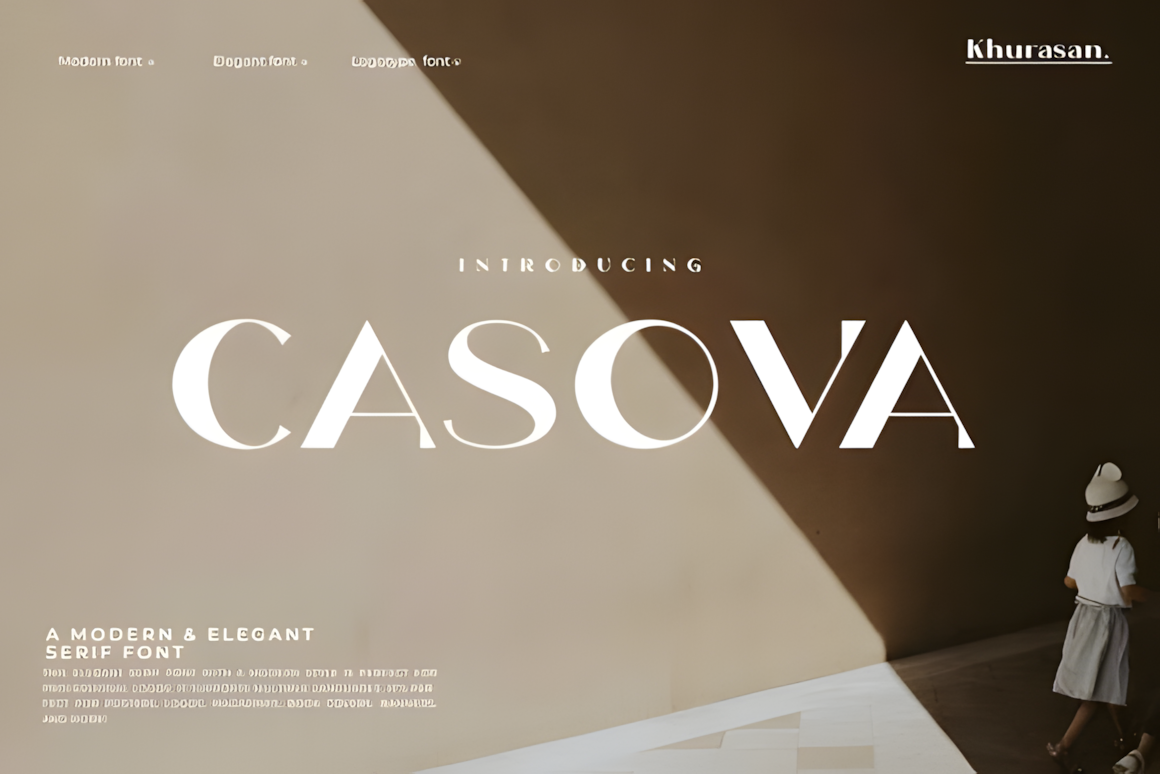
Fenno
Fenno is a chic, classic serif where timeless sophistication meets modern refinement—perfect for any project that demands understated elegance.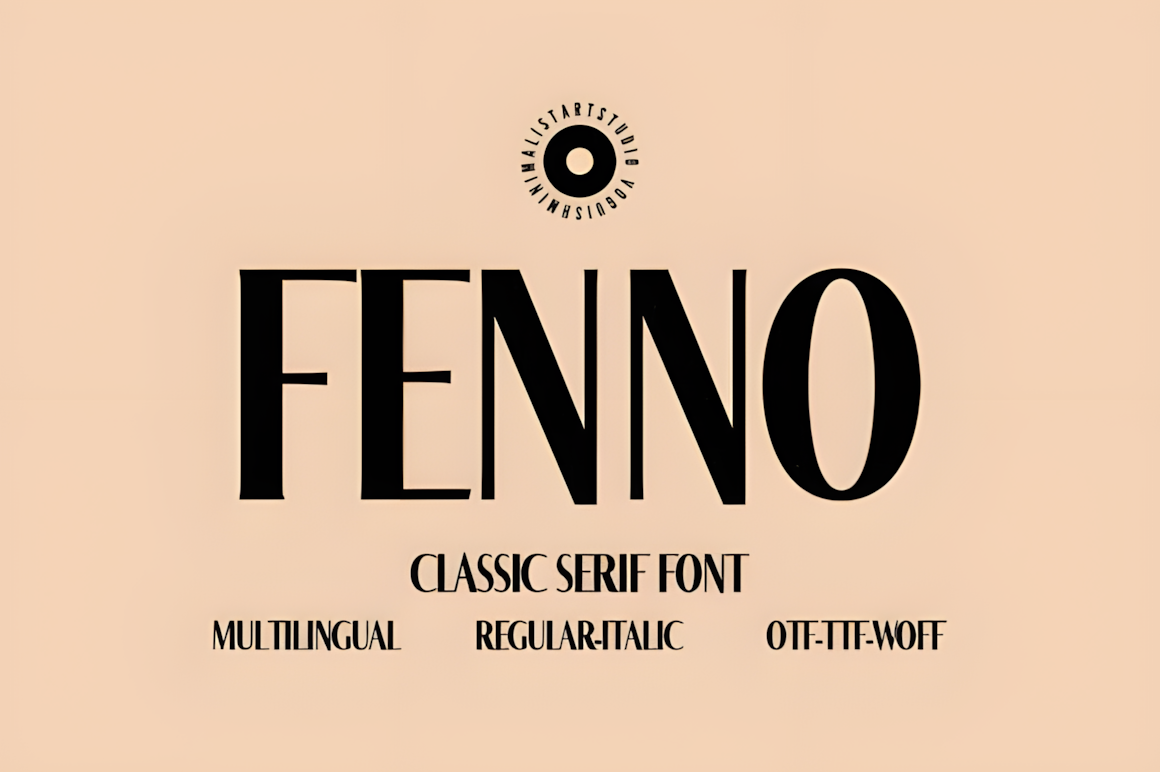
Magnus
Magnus Serif is a bold display font where brutalist sharpness meets high-fashion elegance—high-contrast strokes create rhythmic impact perfect for luxury editorials and commanding brand visuals.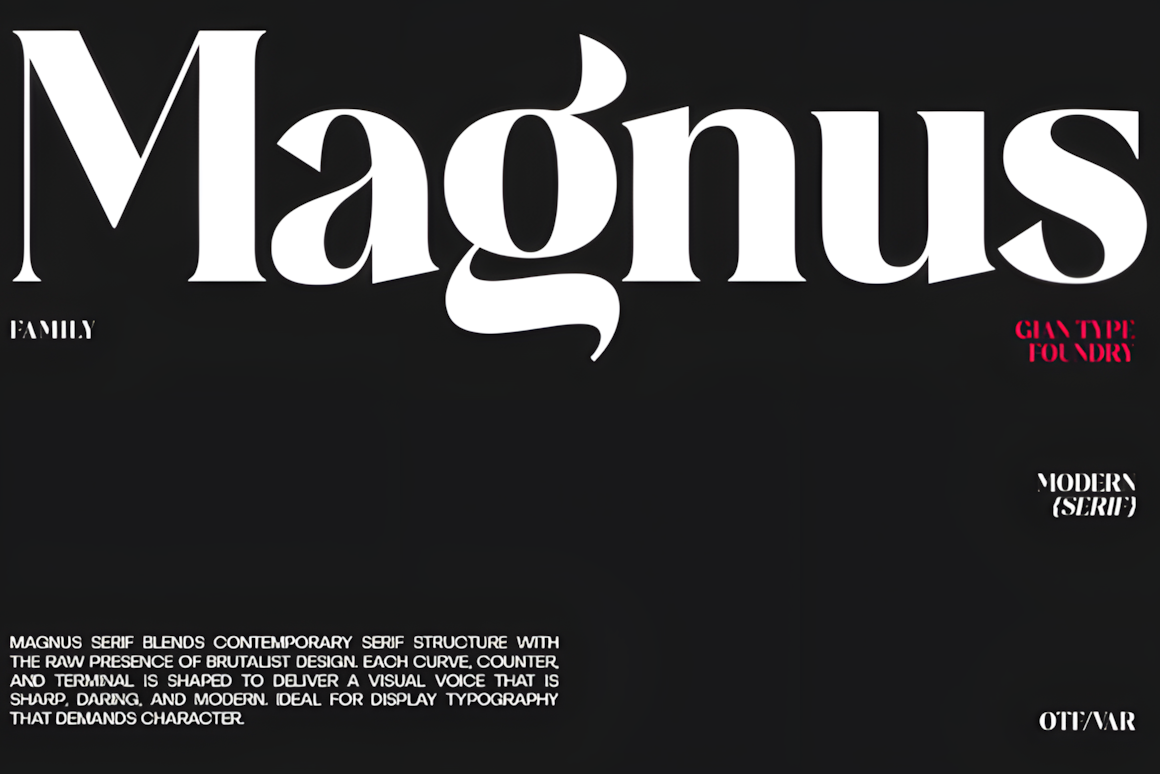
Aulisse
Aulisse is a high-contrast serif defined by dramatic ligatures and swan-like curves—exquisite, fluid, and built for luxury wedding invites, high-fashion logos, and premium beauty packaging.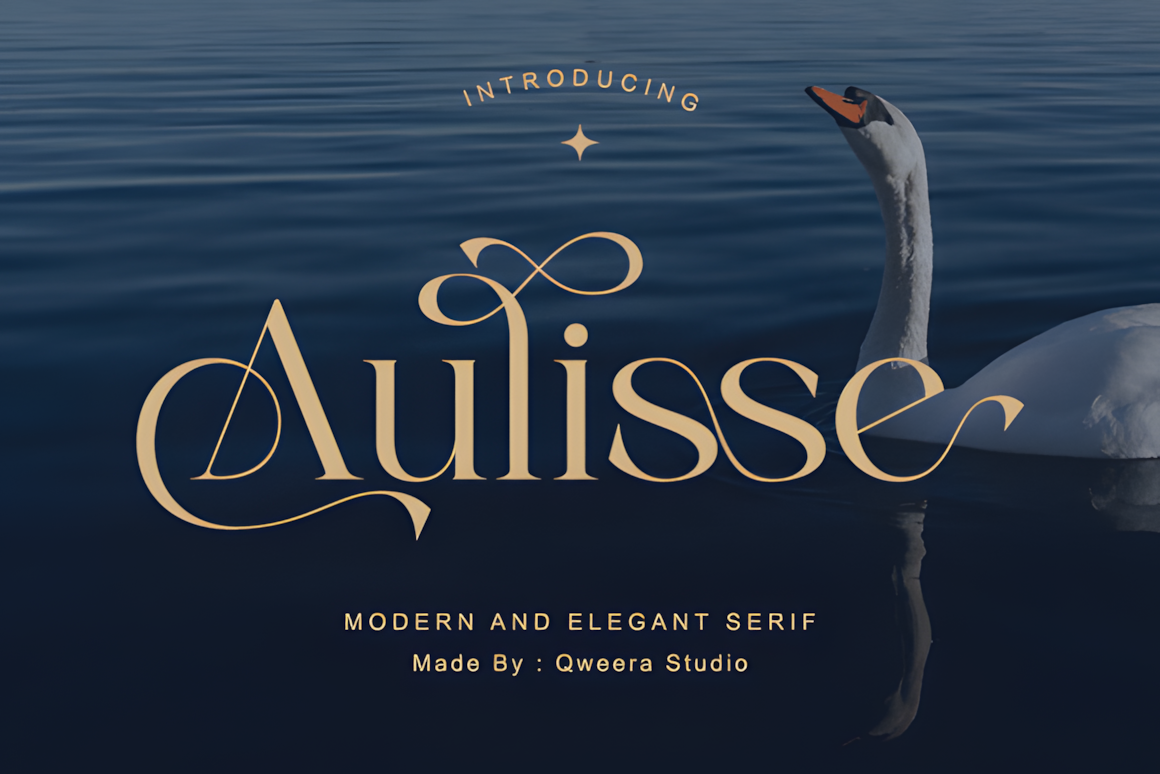
Mesuho
Mesuho is a sophisticated serif where modern refinement meets vintage charm—effortlessly elegant and built for projects that demand artistry and readability.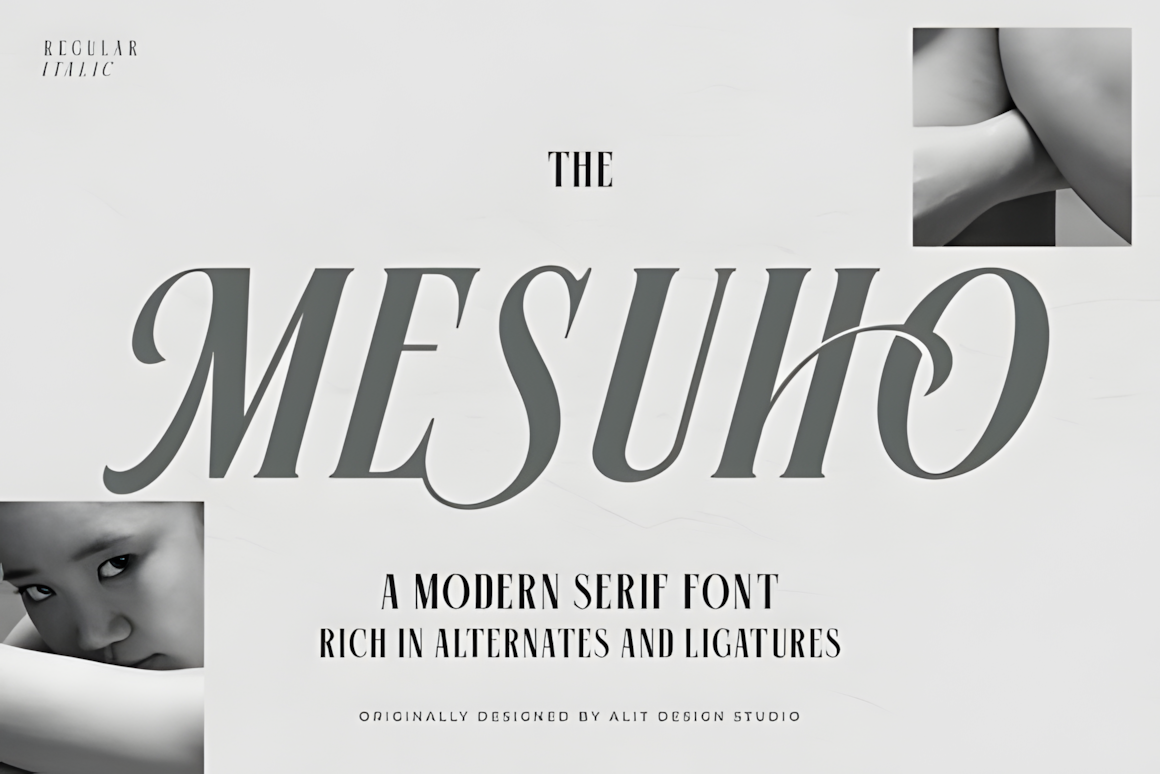
Quirino
Quirino Serif is a timeless classic where refined elegance meets modern sophistication—clean, balanced, and crafted for projects that demand enduring style.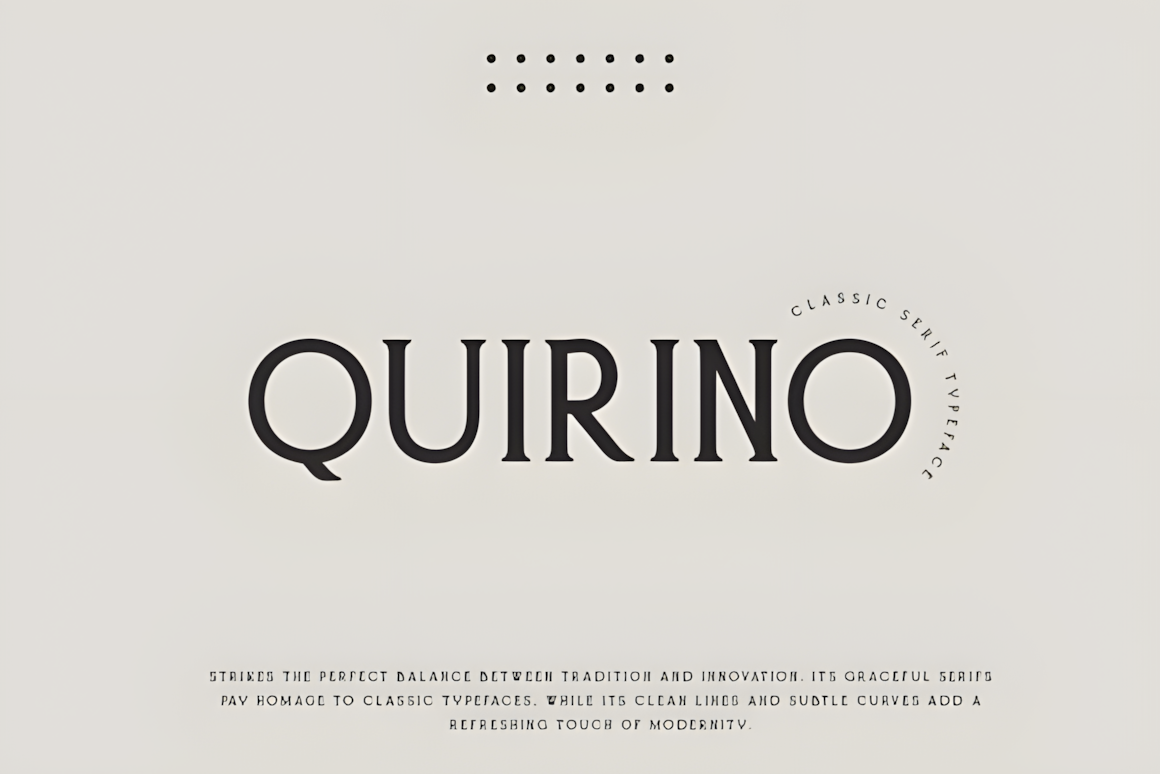
Chrome
Chrome is a sleek semi-condensed serif where elegance meets versatility—captivating uppercase forms elevate every project with refined, aesthetic precision.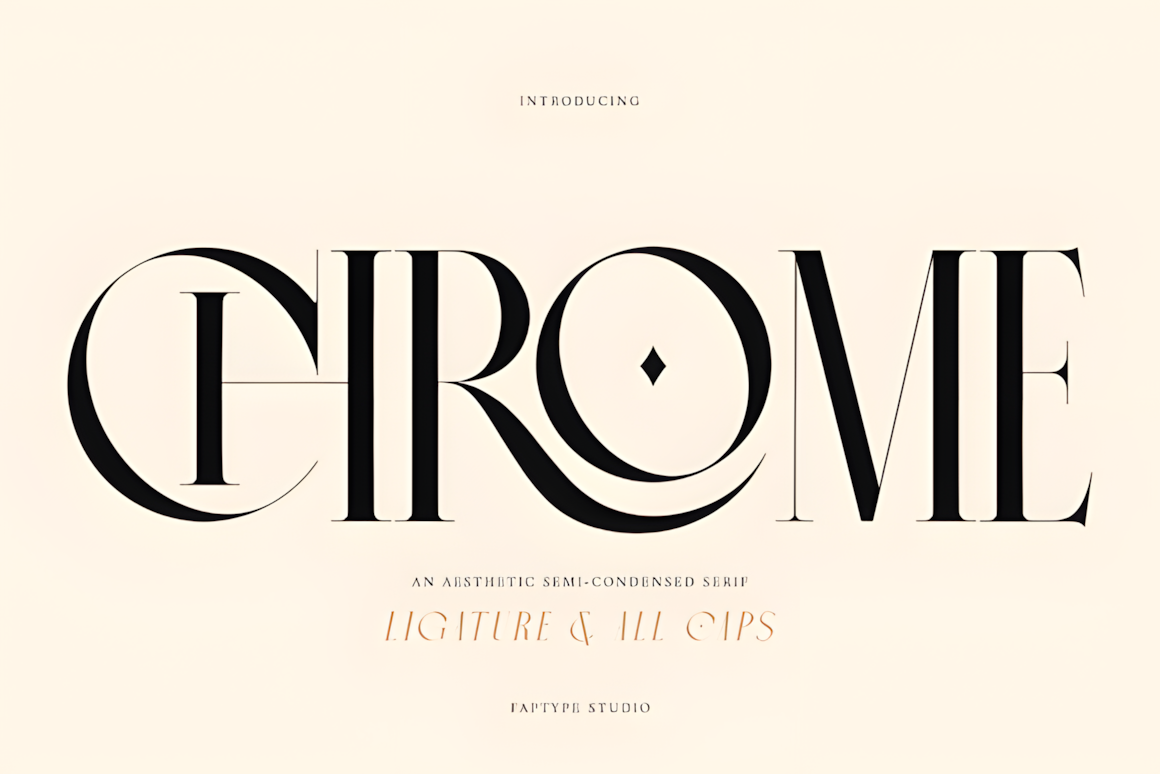
Honest Proud
Honest Proud is an aesthetic modern serif with stylish alternates and ligatures—elegant, classy, and PUA encoded for easy access, perfect for logos, branding, and editorial imagery.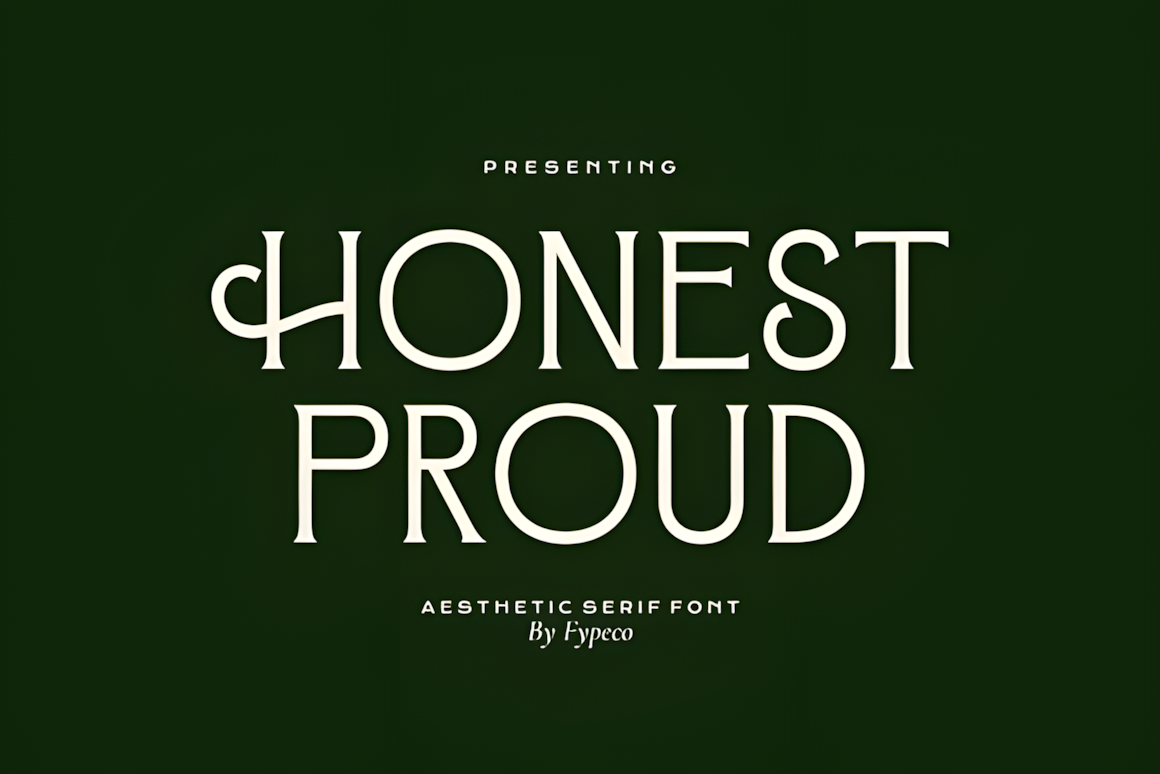
Kuta
Kuta is a minimal modern serif with exclusive appeal—perfect for fashion, editorial, and lifestyle branding, pairing effortlessly with clean sans or light script.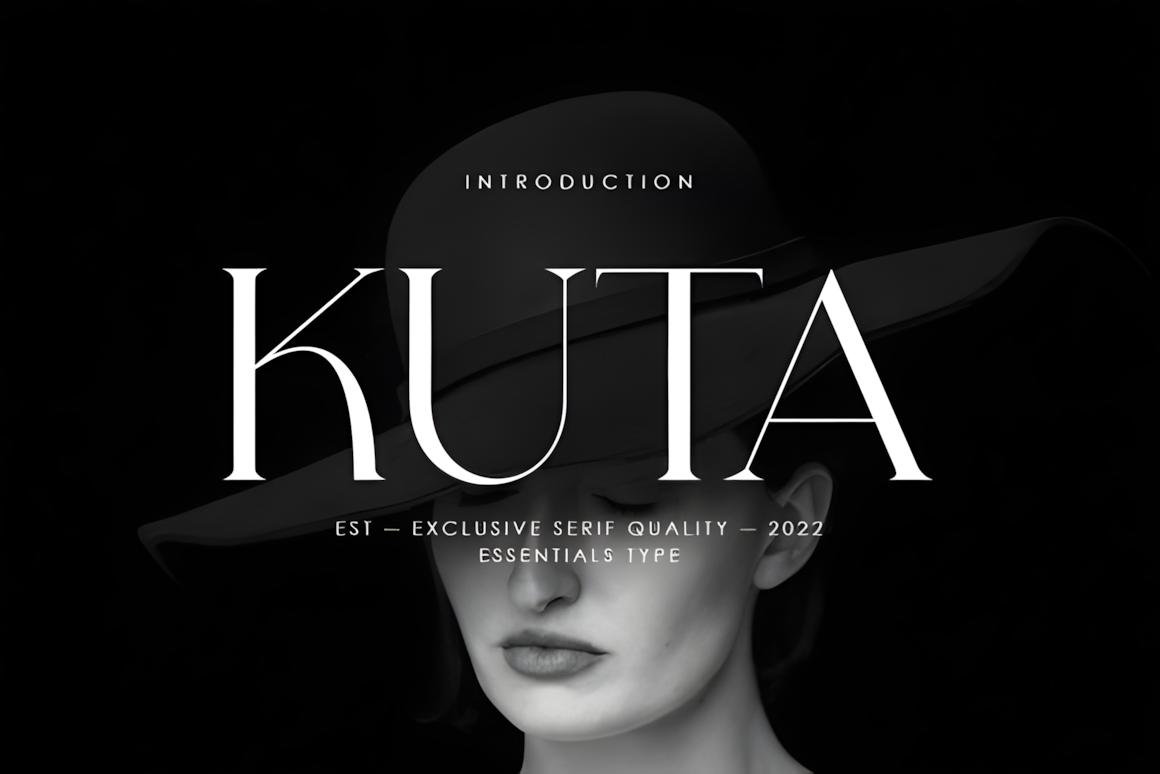
Nosera
Nosera is a modern retro serif with oversized alternates—bold personality and nostalgic charm fused for logos, headlines, and designs that bridge past and present.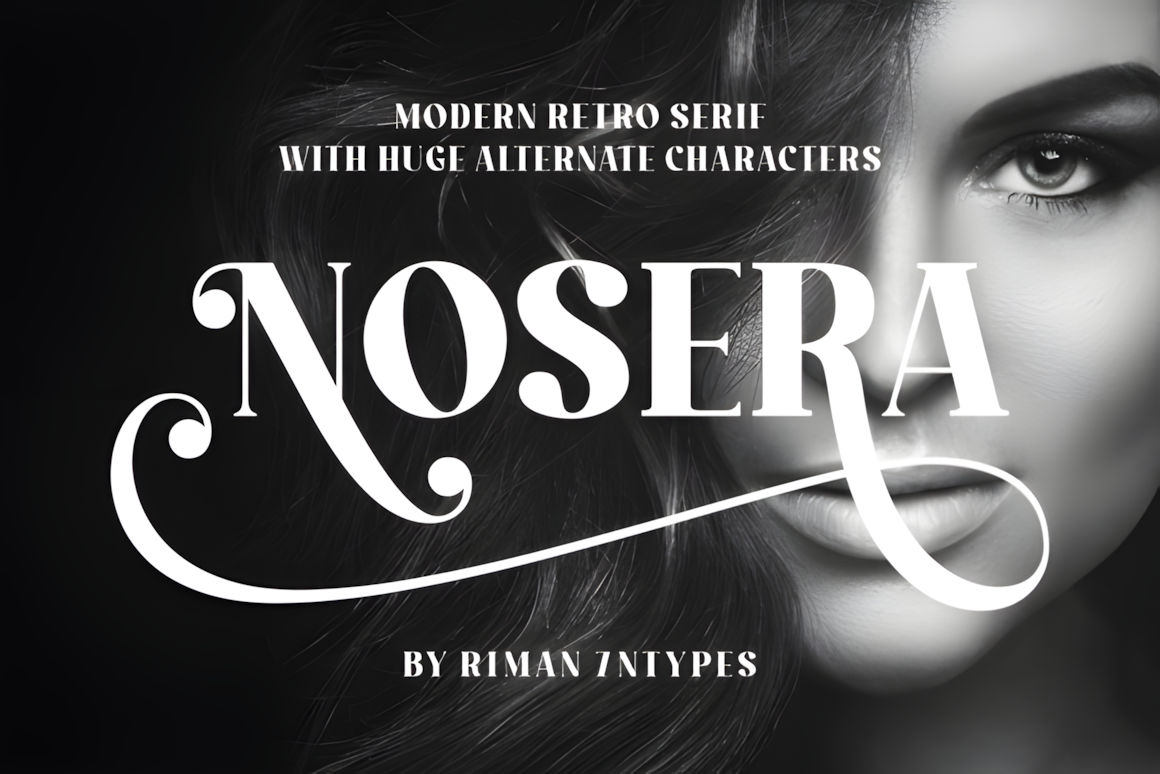